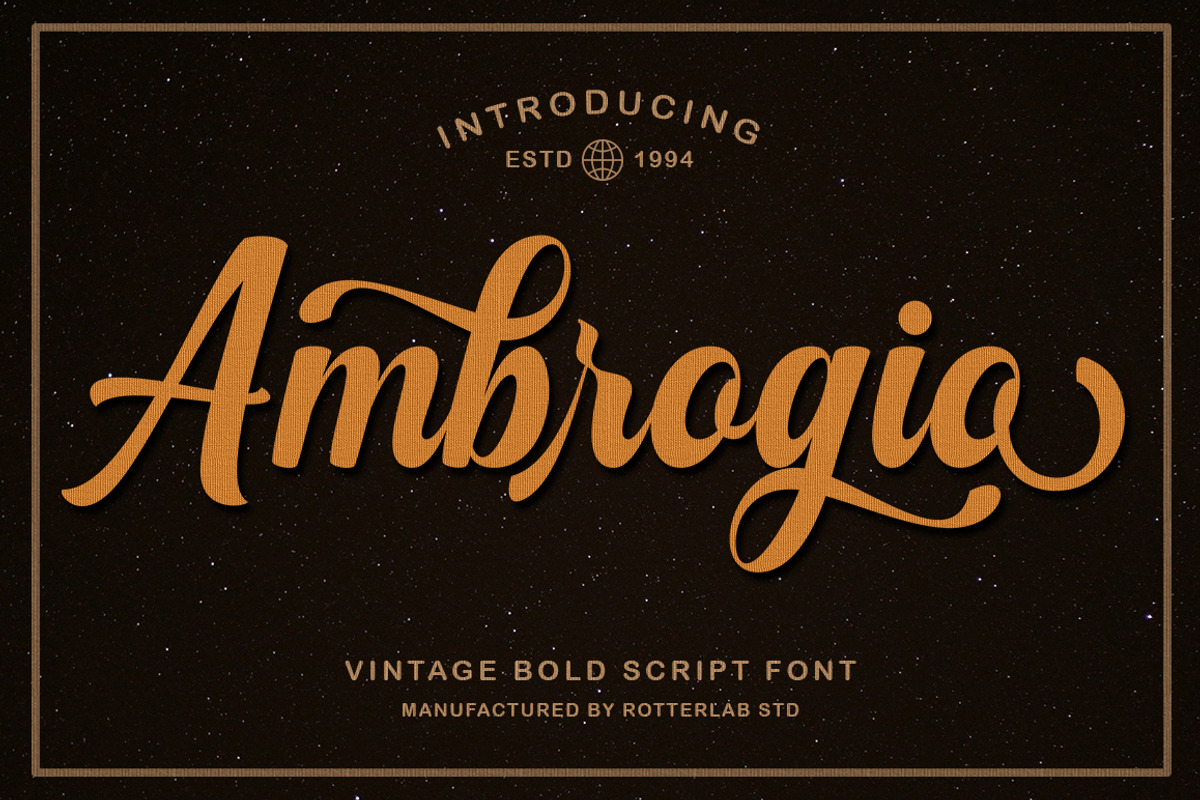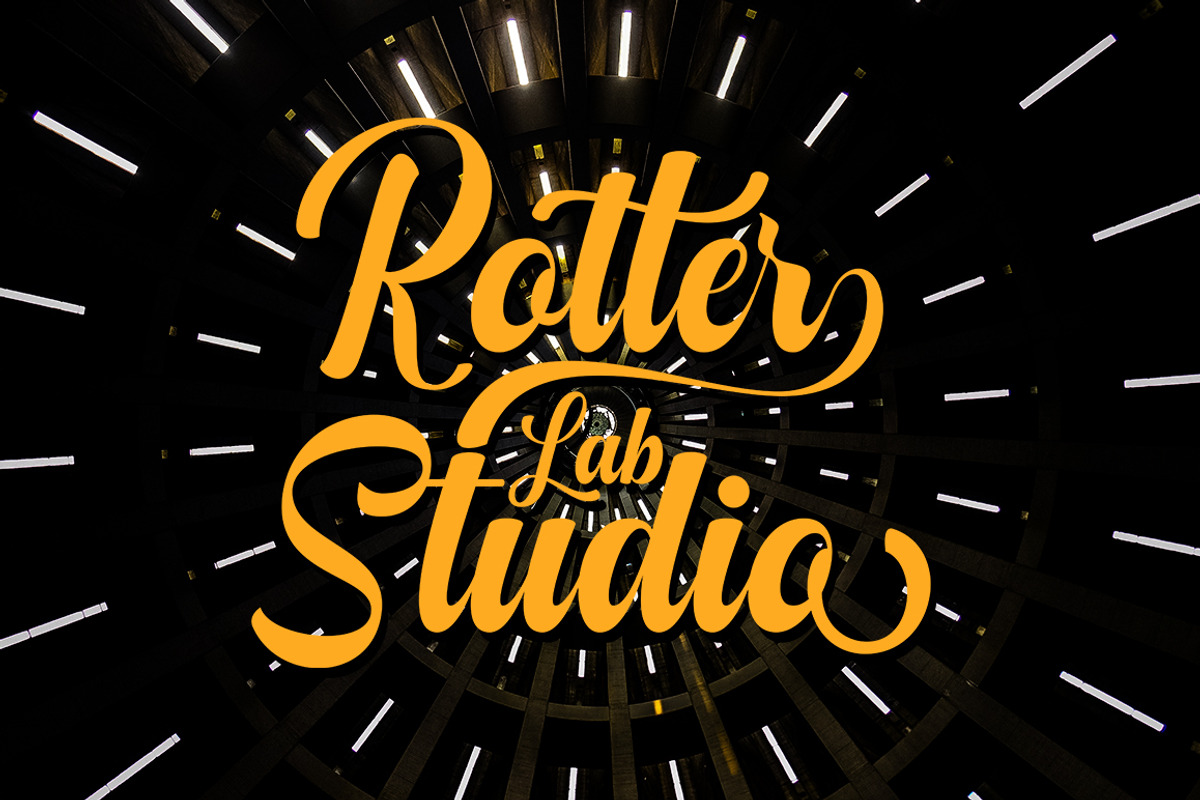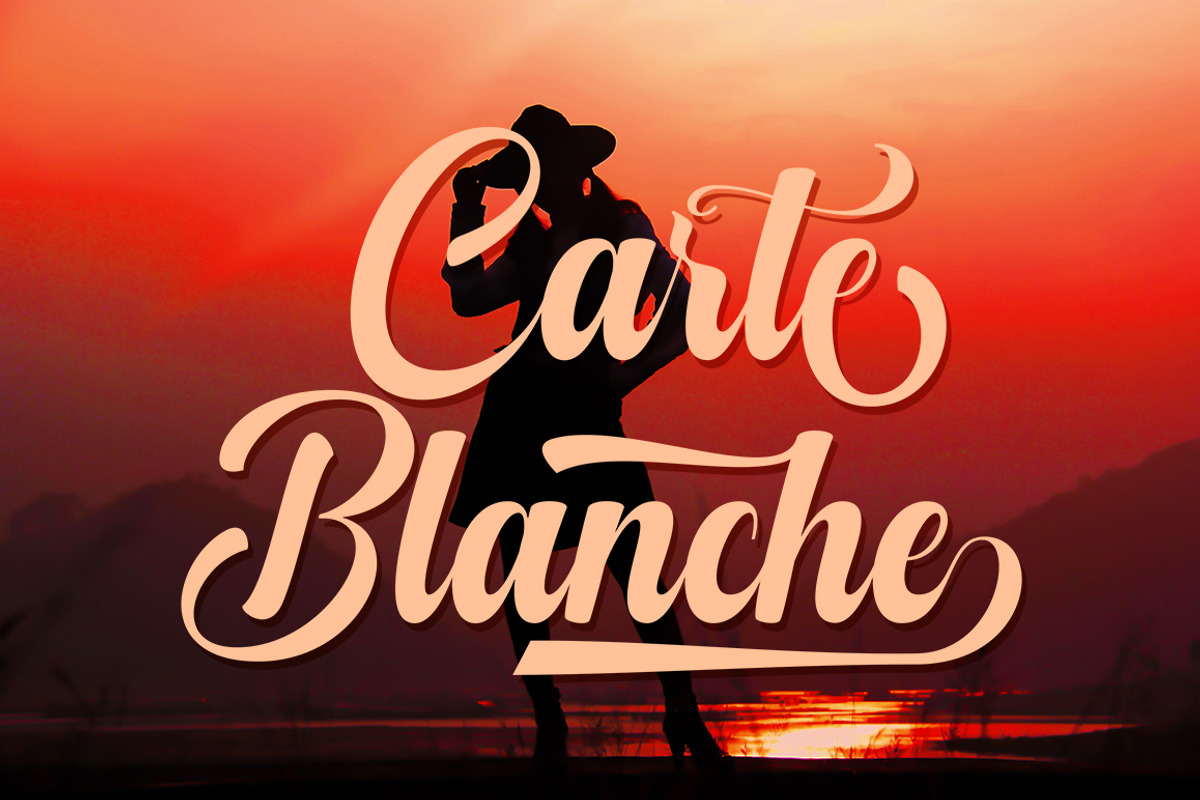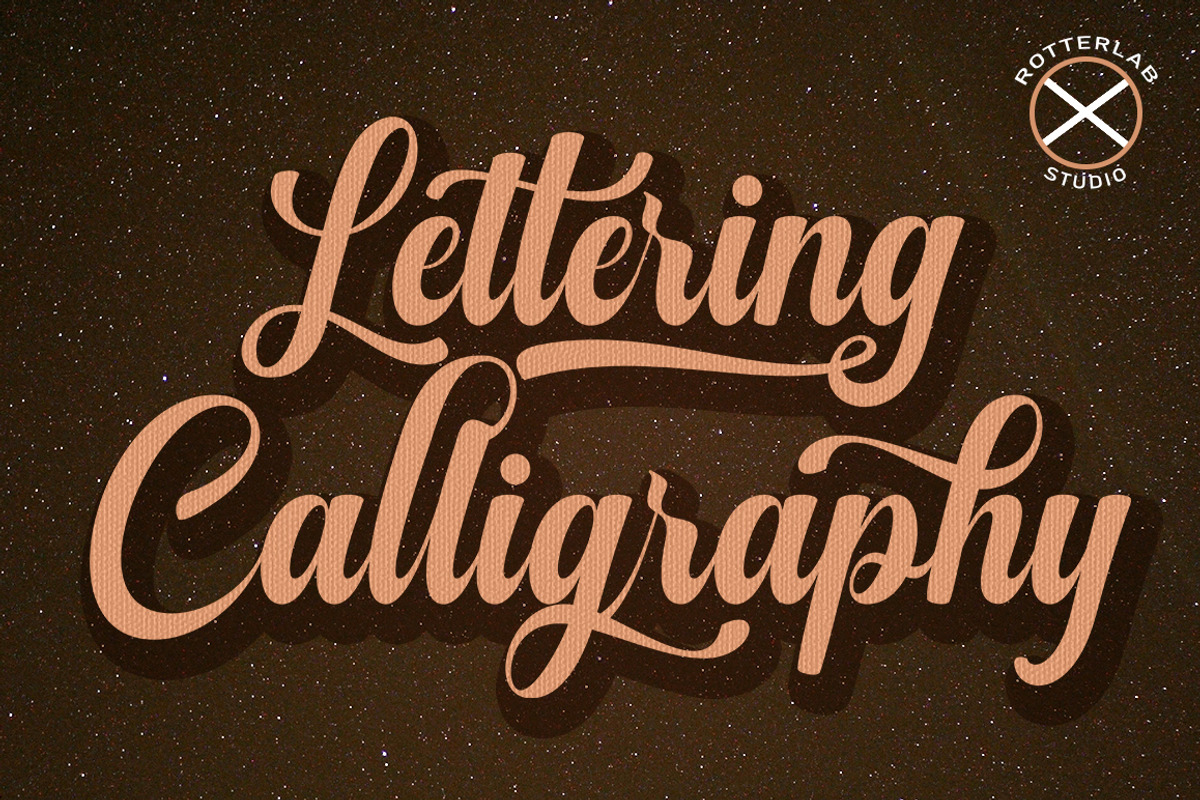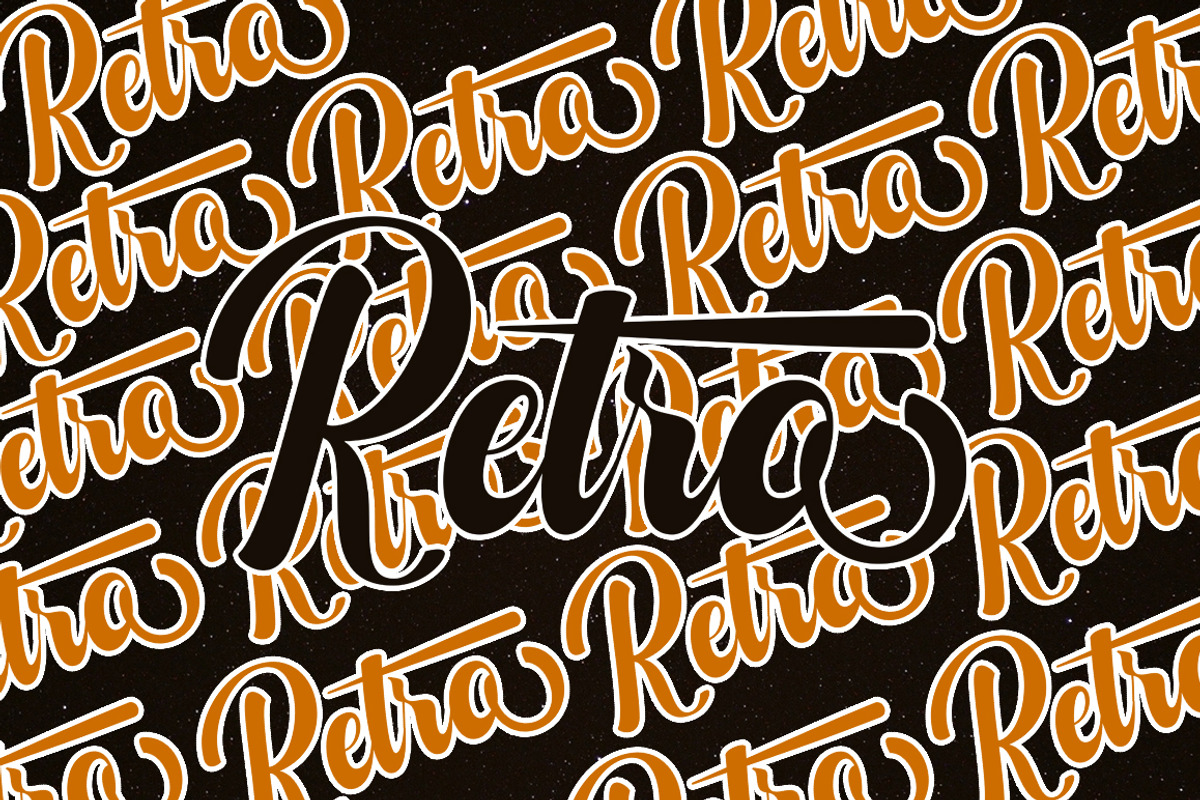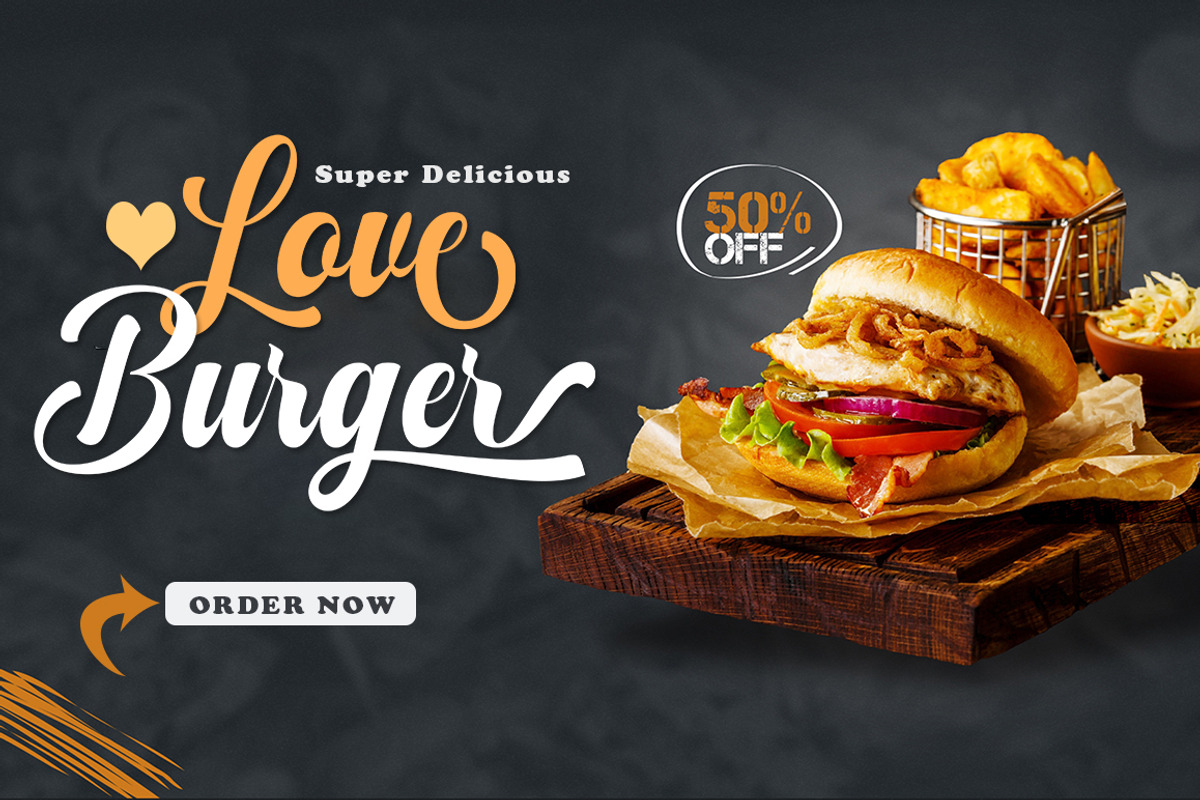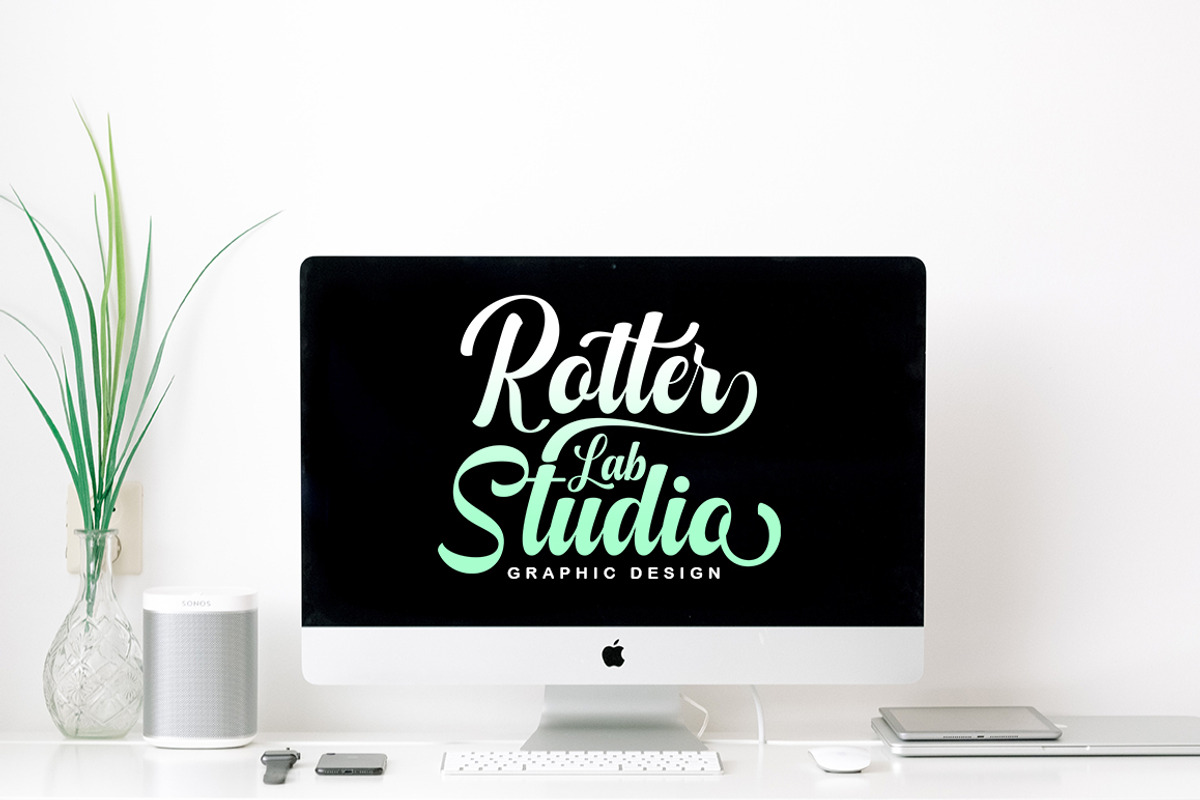
Ambrogio
Ambrogio Script Inspired by Modern Vintage & Retro style and combination with old American traditional style.
Ambrogio script that lets you handwrite. Ideal for logos, handwritten quotes, product packaging, headers, posters, merchandise, social media & greeting cards.